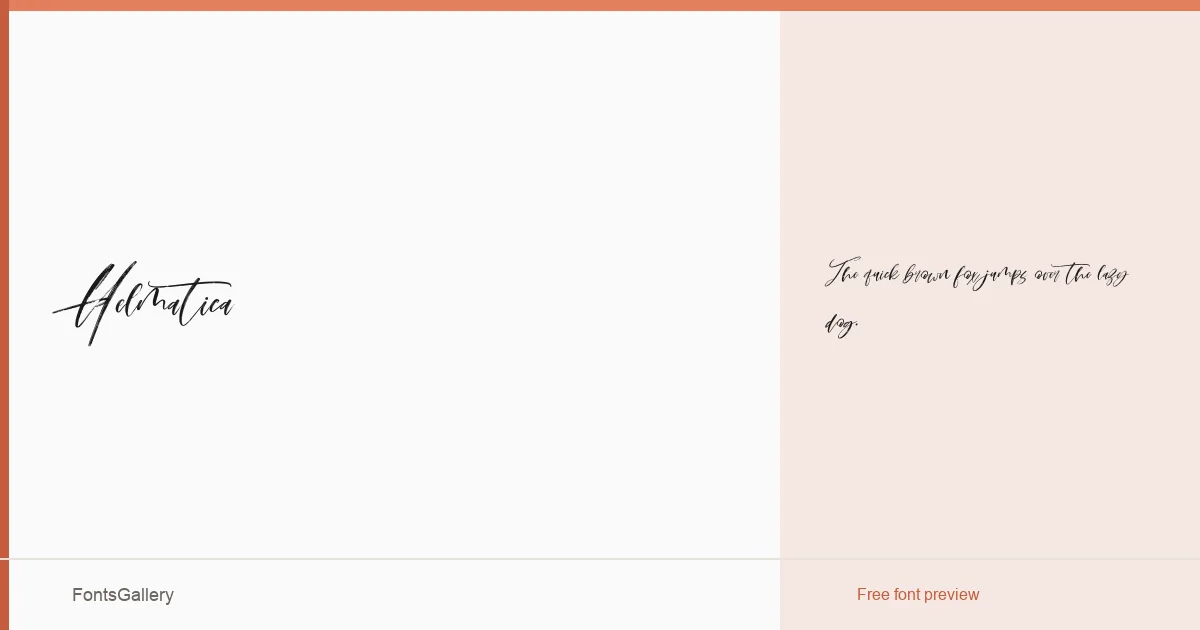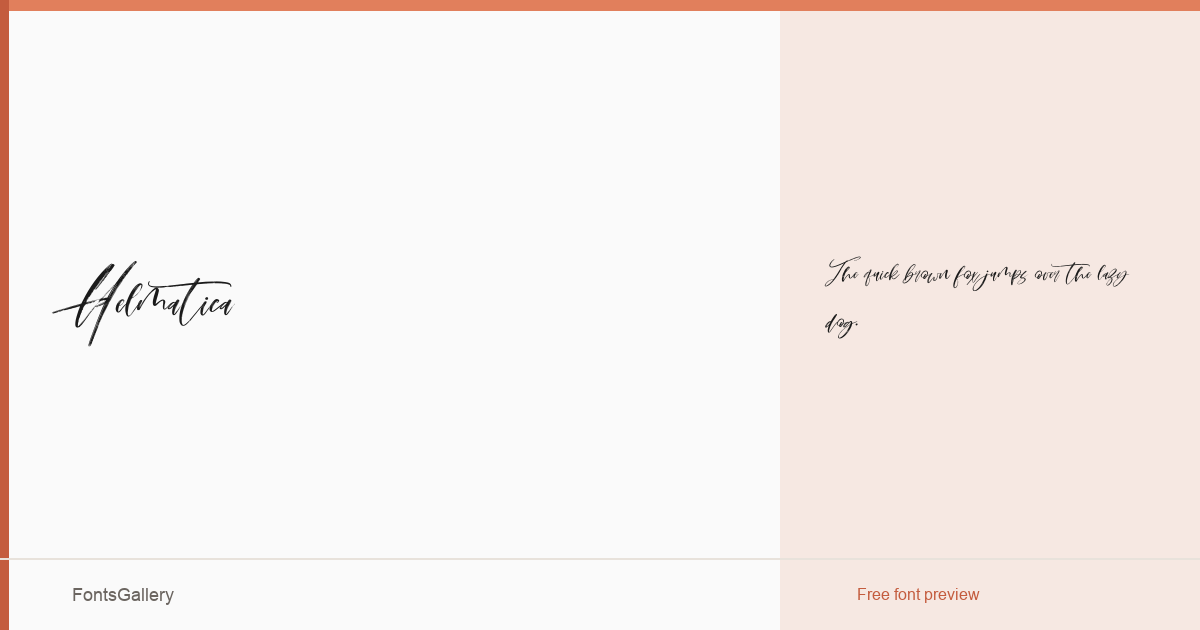
About Helmatica Font
Helmatica is a script typeface crafted by designer Bellingham, bringing an elegant and romantic sensibility to every letterform. Rooted in classic script traditions, it carries a timeless charm that feels both refined and graceful. Its flowing style makes it an immediately distinctive choice for projects that call for a touch of sophistication.
Helmatica features the sweeping curves and connected letterforms characteristic of elegant script typography, evoking a romantic and classic mood throughout. Each character is designed with careful attention to fluid stroke transitions, giving the typeface a handcrafted yet polished appearance. The overall aesthetic is one of timeless refinement, well-suited to designs that demand a sense of grace and tradition.
Helmatica shines in applications such as wedding stationery, invitation cards, greeting cards, certificates, and branding projects where an elevated, classic aesthetic is desired. Its expressive script character pairs beautifully with the clean geometric structure of Helvetica, or the complementary style of Aresink, creating balanced and visually compelling typographic compositions.